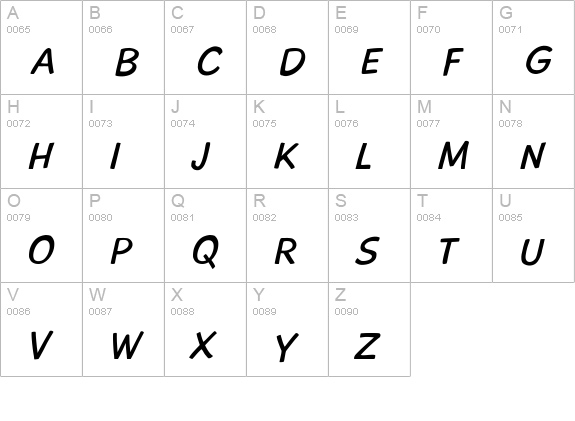
PlaytimeWithHotToddiesOblique Font Details
PlaytimeWithHotToddiesOblique font is a whimsical and playful typeface that adds a touch of creativity and fun to any design project. With its slanted and quirky letterforms, this font is perfect for capturing attention and giving your text a unique flair. Whether you're working on invitations, posters, or social media graphics, PlaytimeWithHotToddiesOblique will bring a sense of joy and lightheartedness to your work. Best of all, PlaytimeWithHotToddiesOblique is freely available to download at FontsMarket.com. So go ahead and add this delightful font to your collection today and let your creativity run wild!